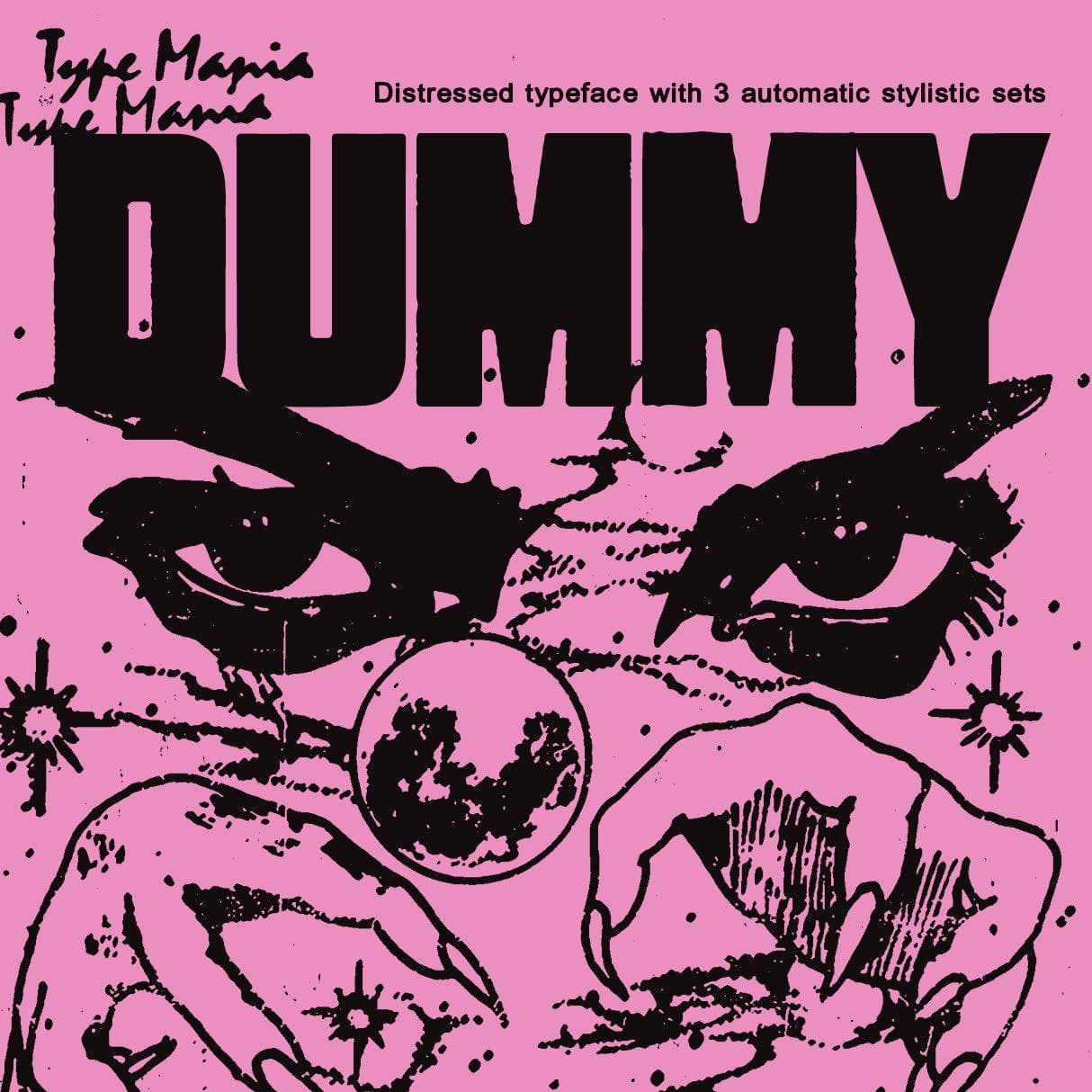
<p><strong>Dummy TM</strong> is your go-to when it comes to heavy distressed type. The font includes <strong>3 unique stylistic sets that rotate automatically as you type</strong> making the designer's job that much easier. Perfect for your street smart flyers, record covers, t-shirt prints, and whatever else you need. Enjoy, you big dummy! <a href="http://www.tinyurl.com/58bubcet">www.tinyurl.com/58bubcet</a></p> <p><strong>Zip includes</strong></p> <ul> <li>OTF file</li> <li>TTF file</li> <li>WOFF2 file</li> </ul> <p><strong>OpenType features</strong></p> <ul> <li>3 stylistic sets</li> <li>The font is programmed to automatically shift between the stylistic sets</li> </ul> <p><em>Graphic Design is Easy (with Type Mania)®</em></p>